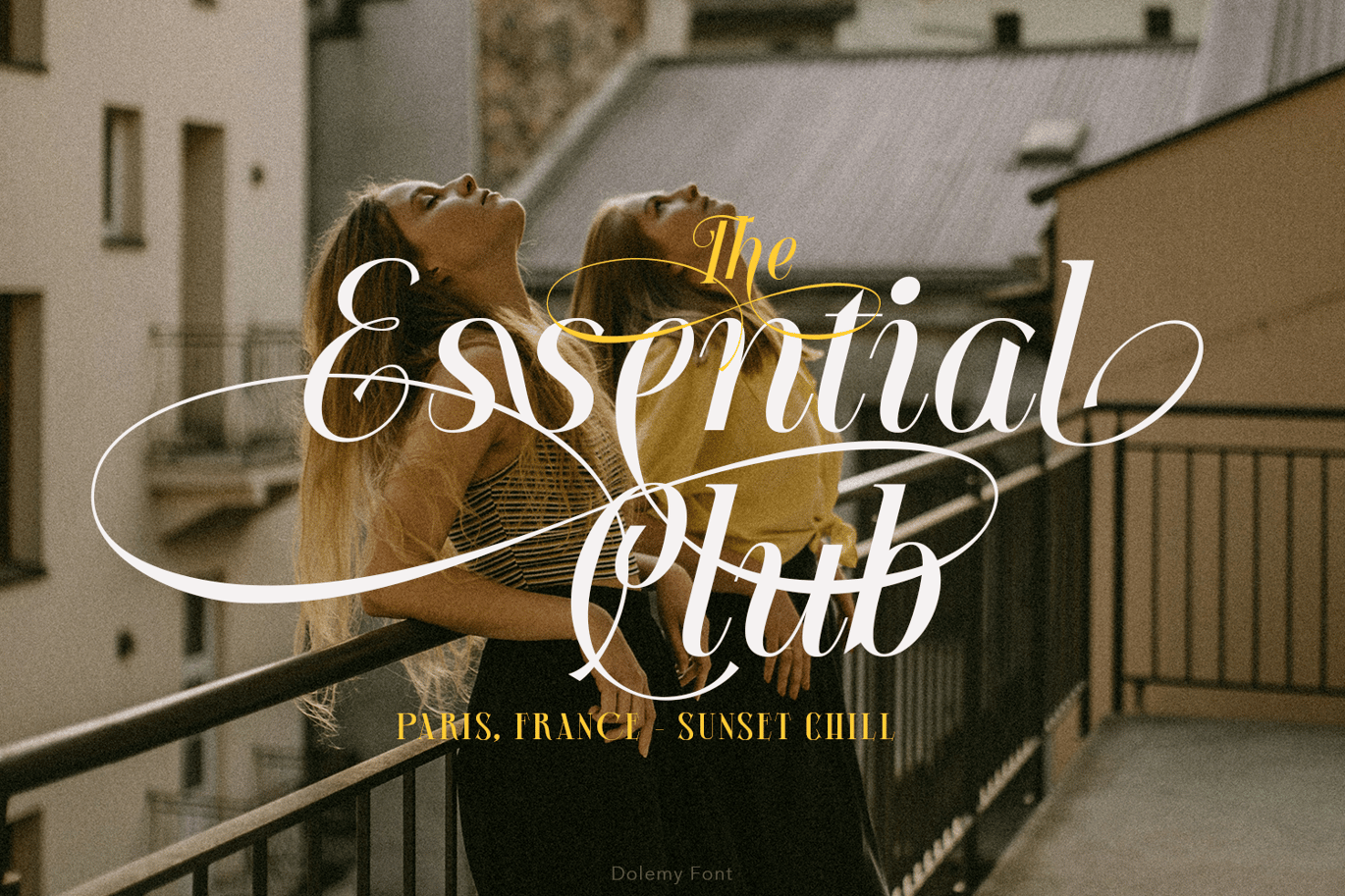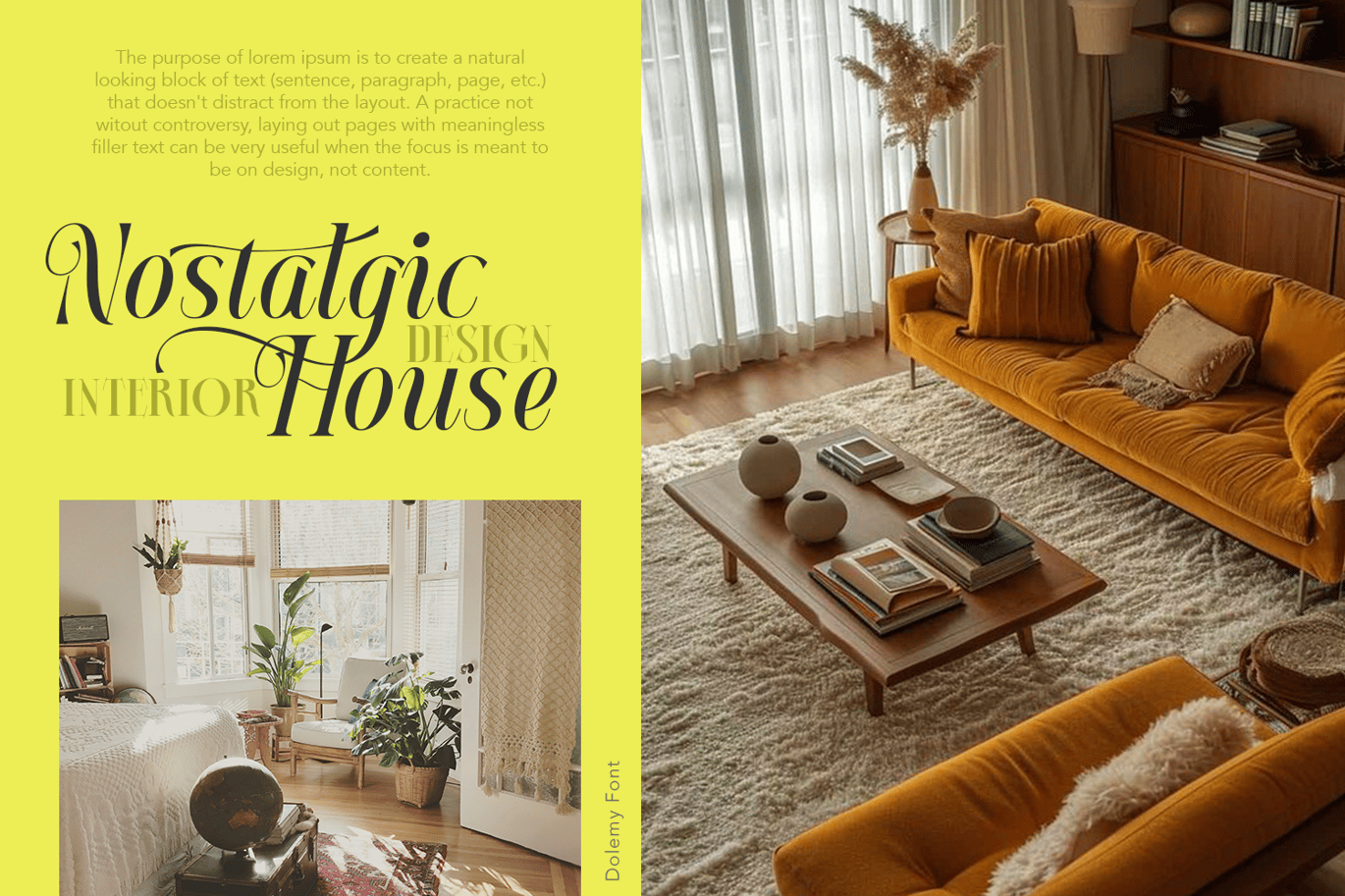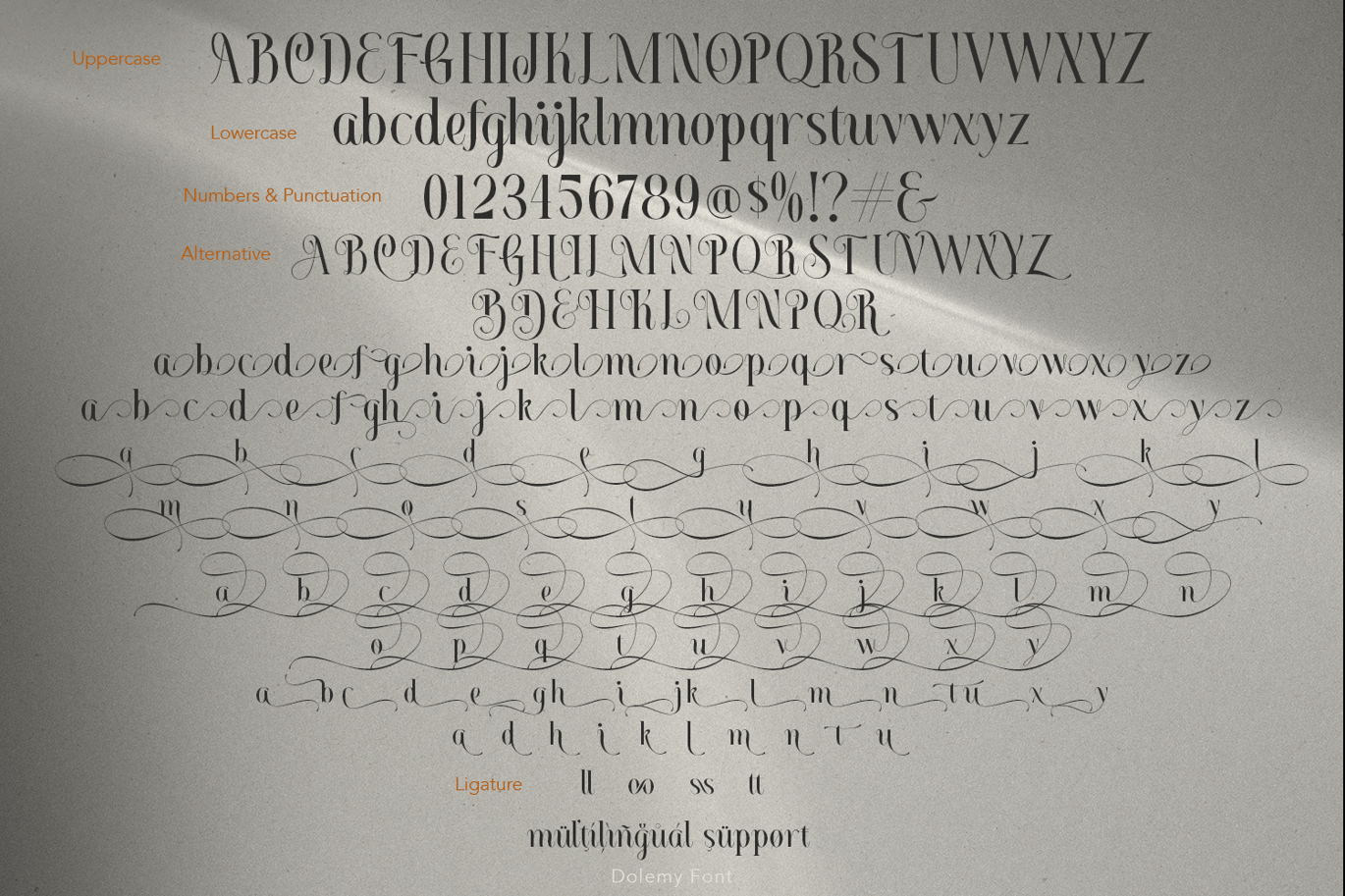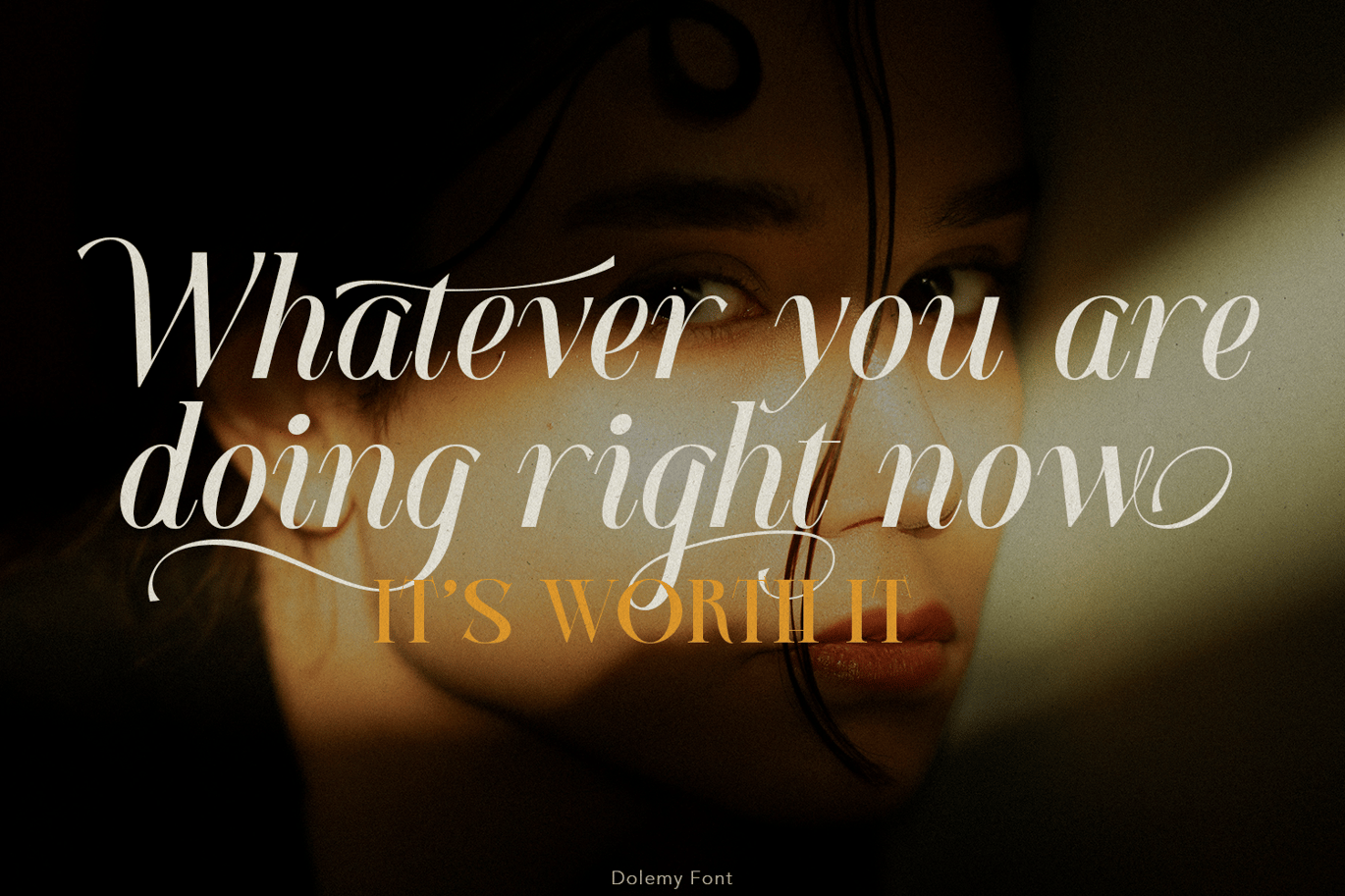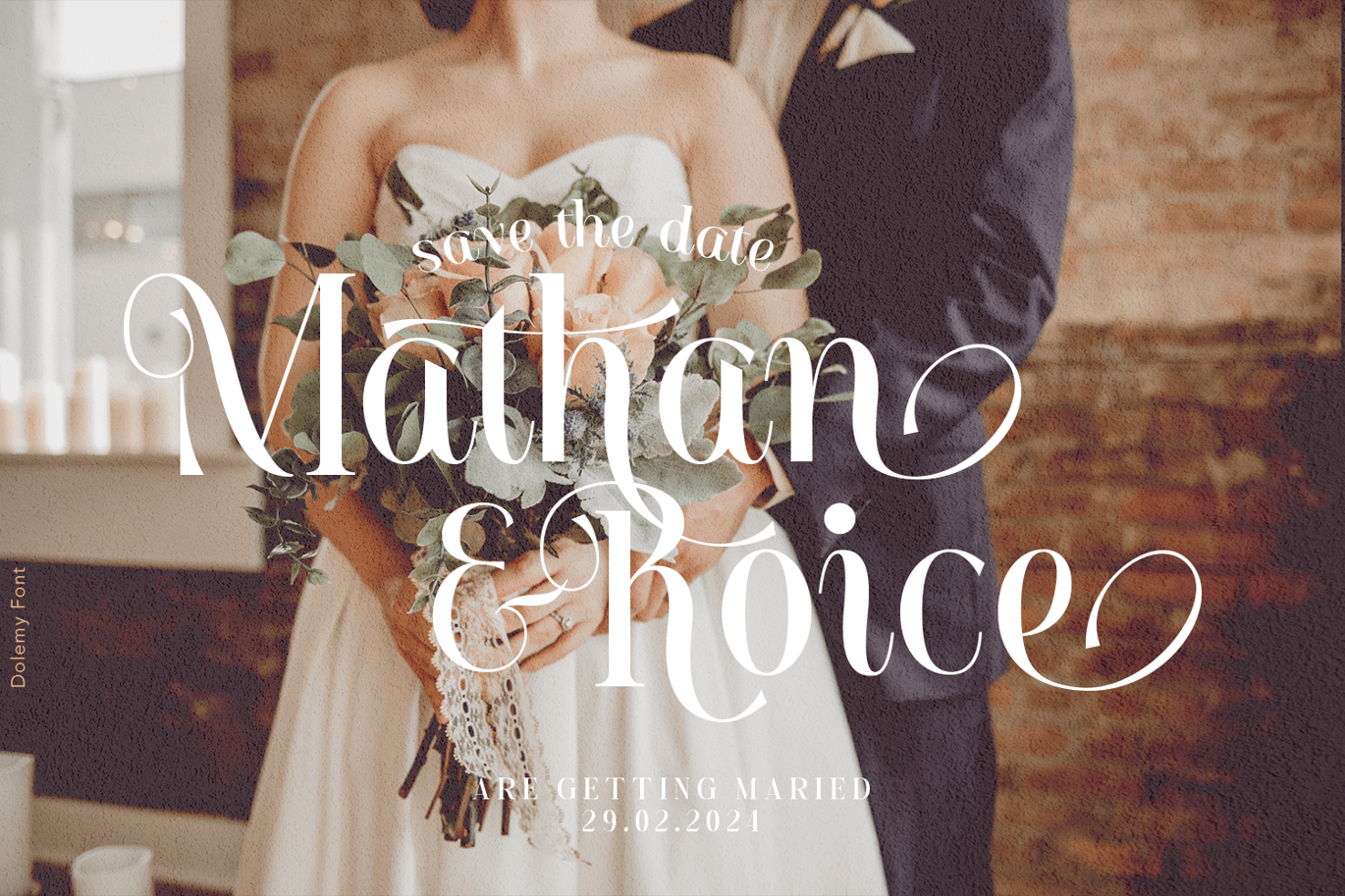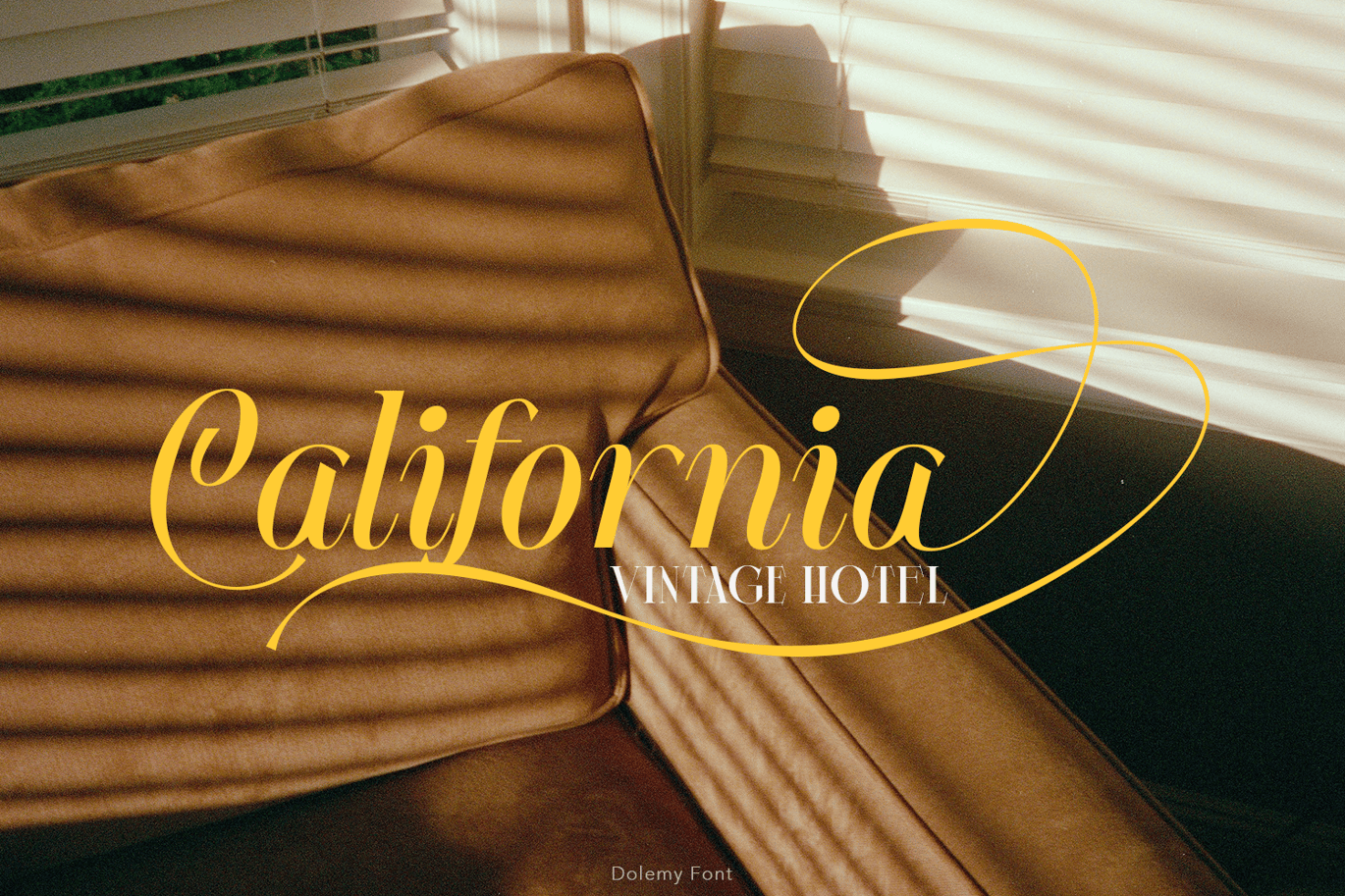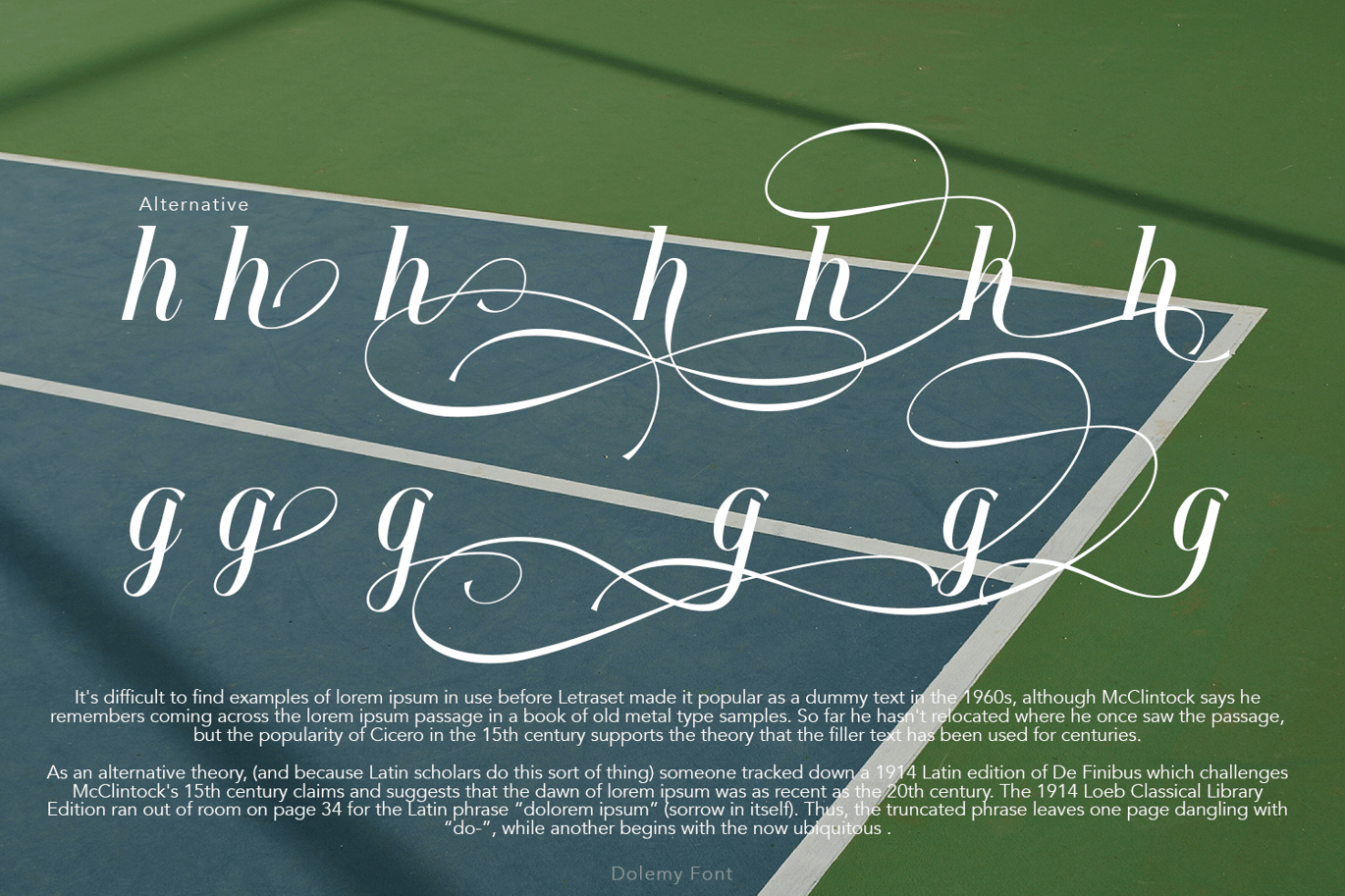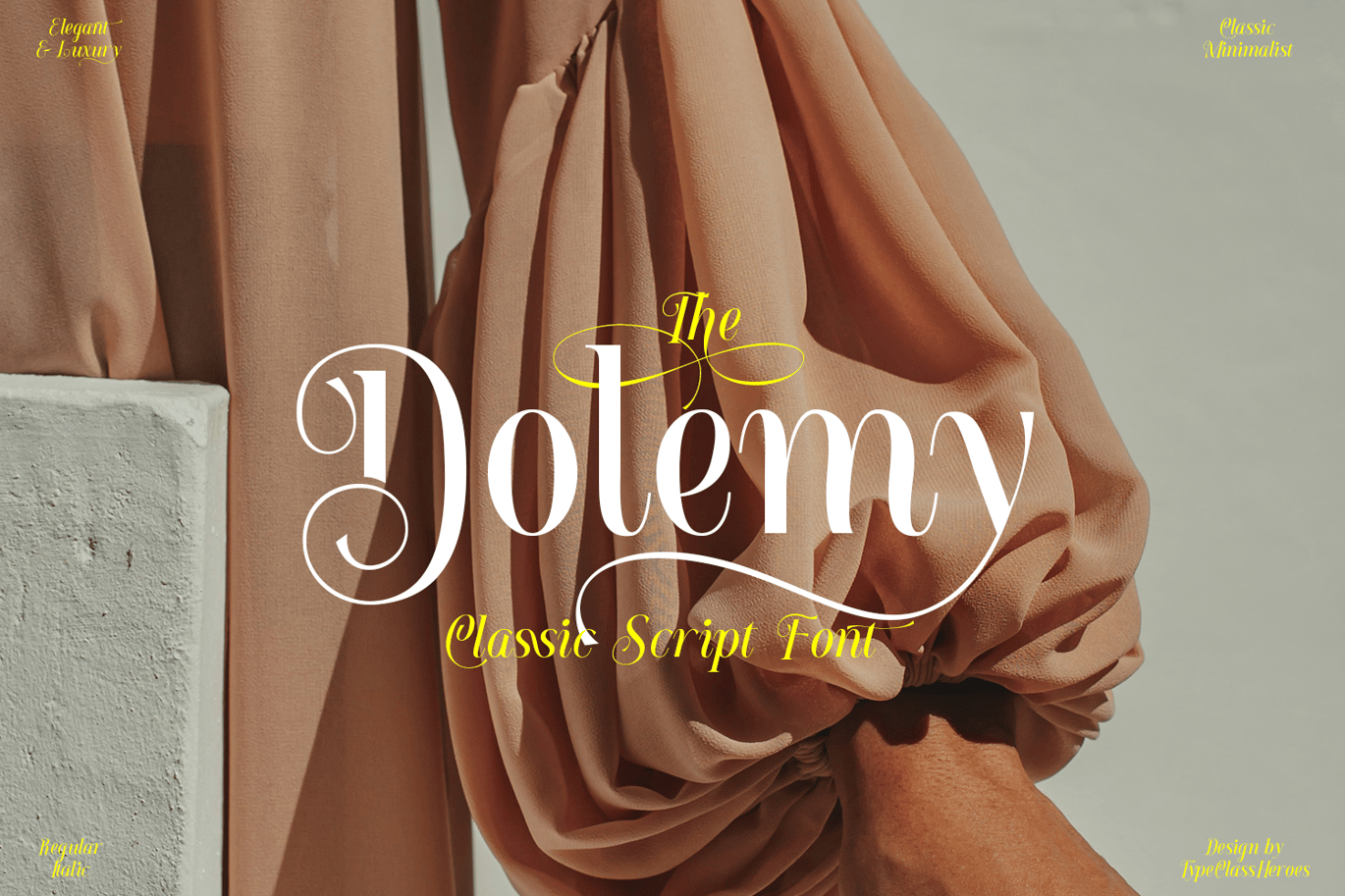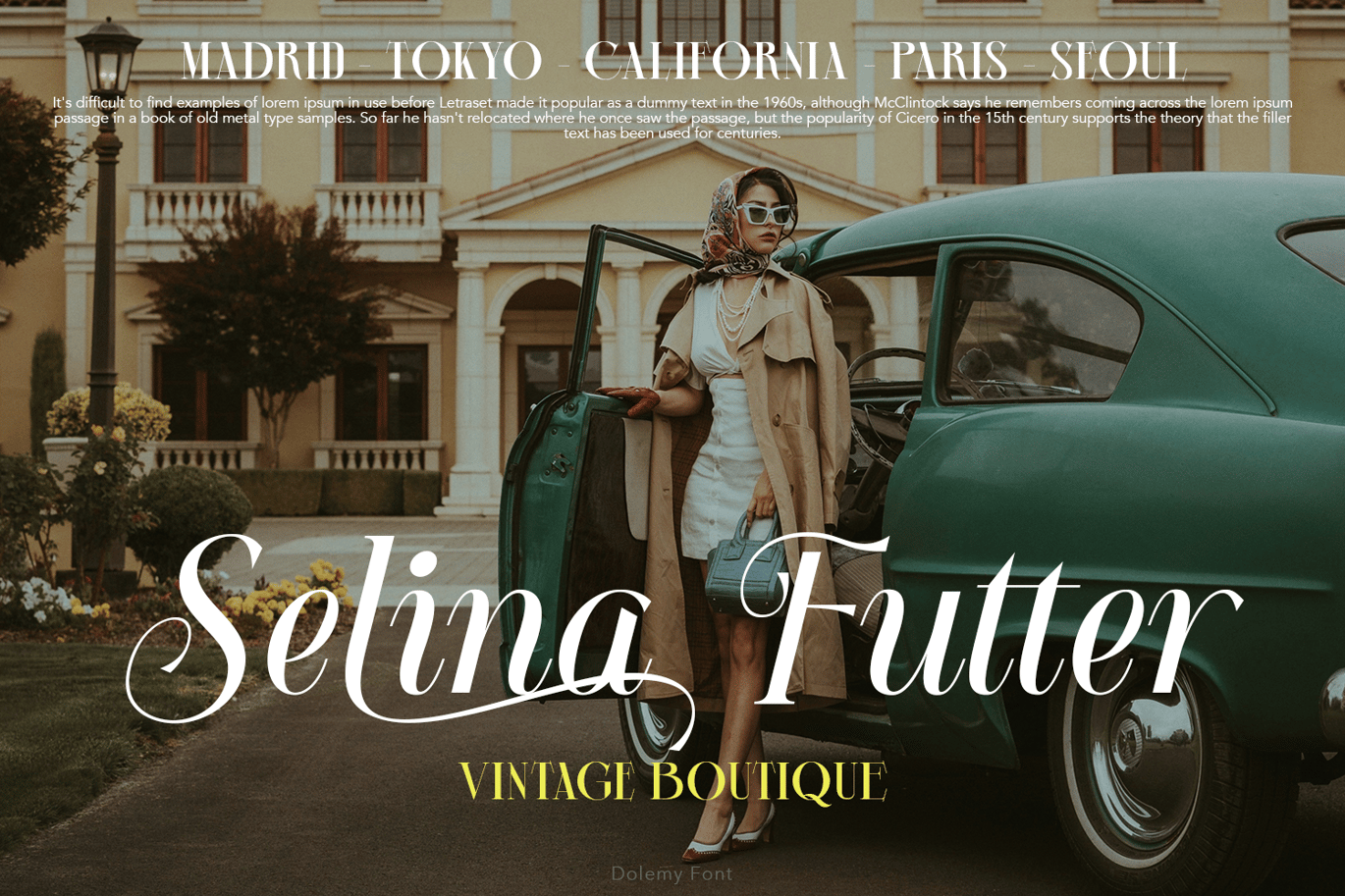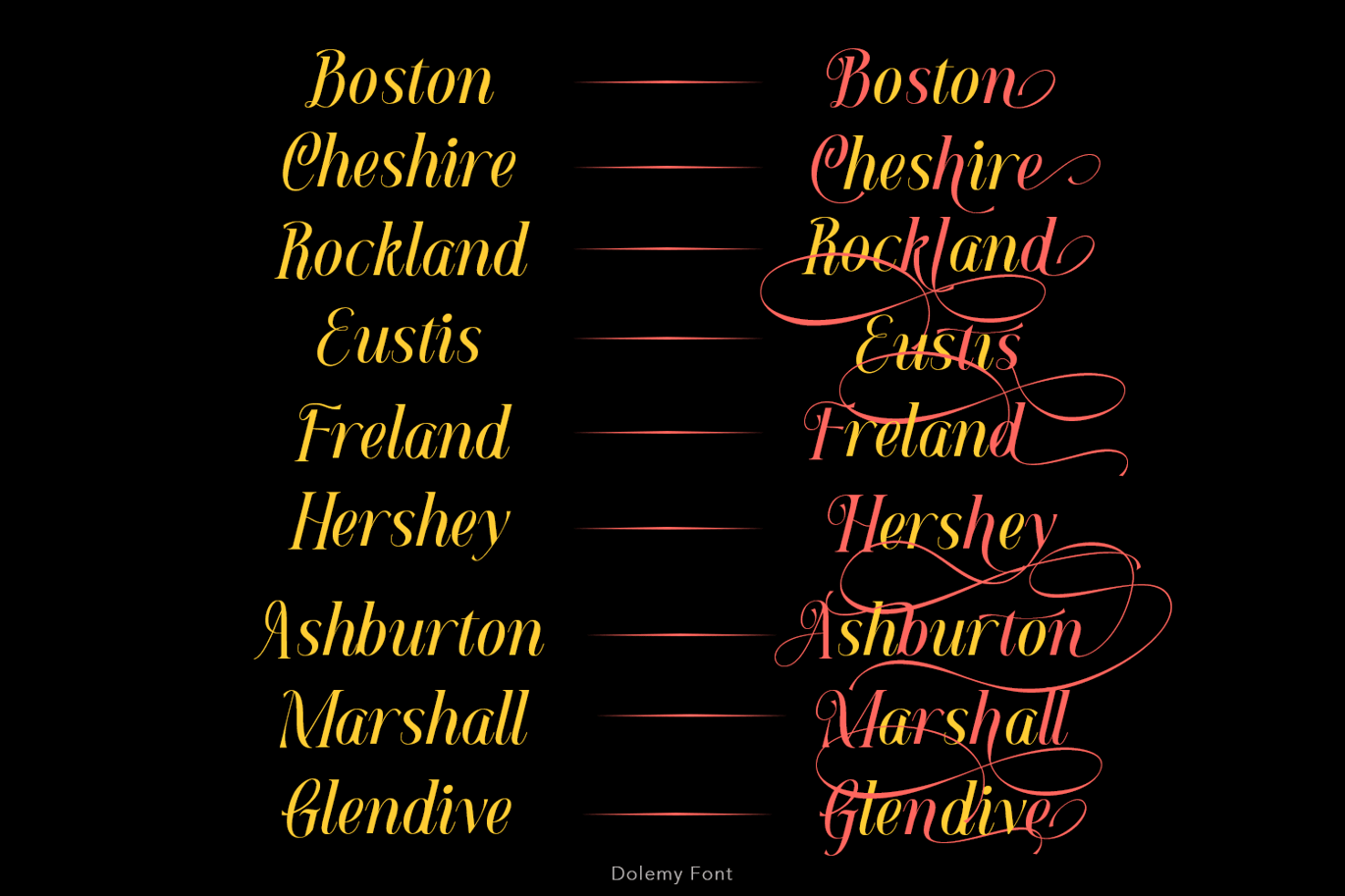
Dolemy Classic Font
Hello, I’m really excited to introduce Dolemy is a script with classic feel become an elegant and minimalist and this font has the potential to bring each of your creative ideas to the highest level. With style combine with ligatures and special alternative glyphs so you can create a lot with layouts and compositions. Dolemy brings a touch of luxury and bespoke custom typography to logos, websites, social media quotes, wedding branding, and many more.
Feature
- Number & Symbol
- International Glyphs
- Alternative